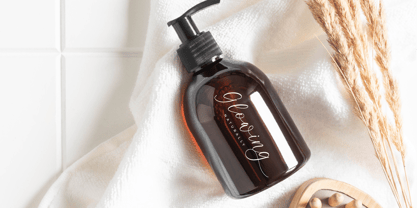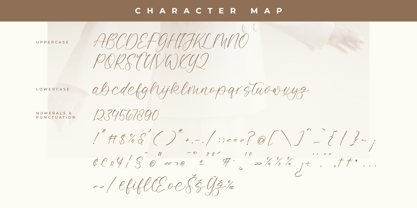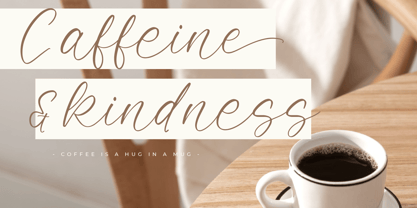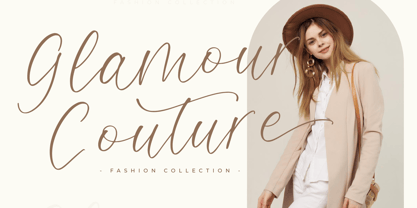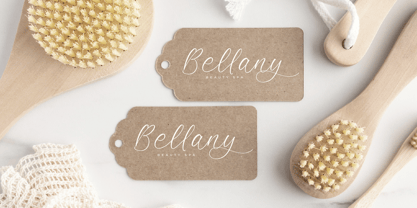
Valentina Goldwyn
by Letterena Studios
The Valentina Goldwyn Font Family was designed by Heru Utama Putra and published by Letterena Studios. Valentina Goldwyn contains 2 styles and family package options. More about this family
Valentina Goldwyn – Elegant Handwritten Script , from Letterena, is a Luxury Script font, suitable for any projects such as: logos, branding projects, homeware designs, product packaging, mugs, quotes, posters, shopping bags, t-shirts, book covers, name card, invitation cards, greeting cards, label, photography, watermark, special events, and all your other luxury and beautiful projects that need a Luxury serif taste.